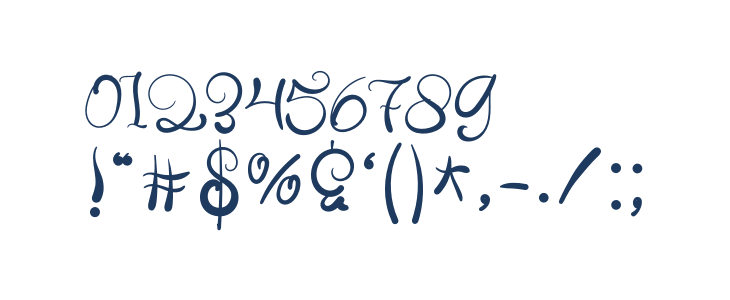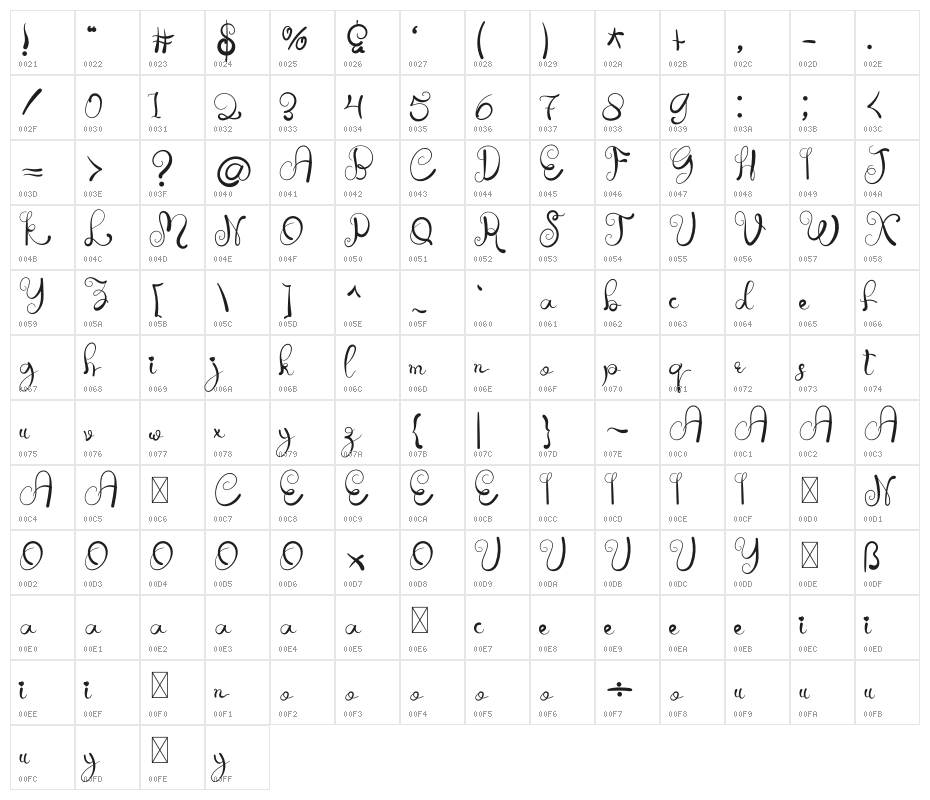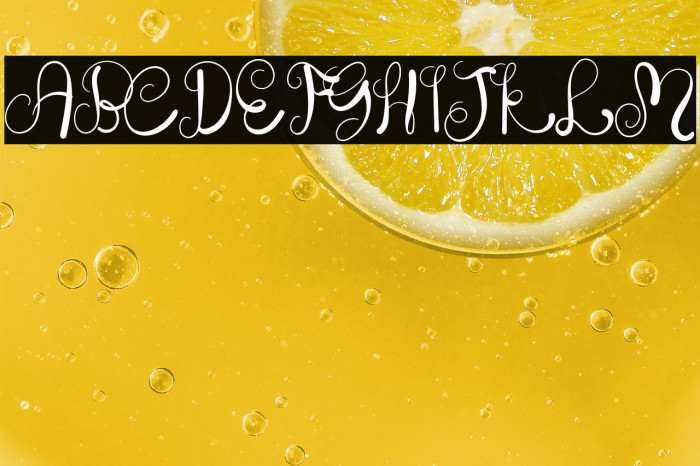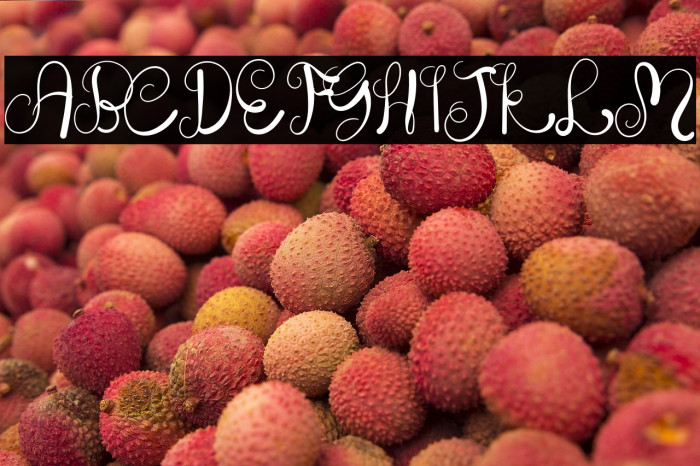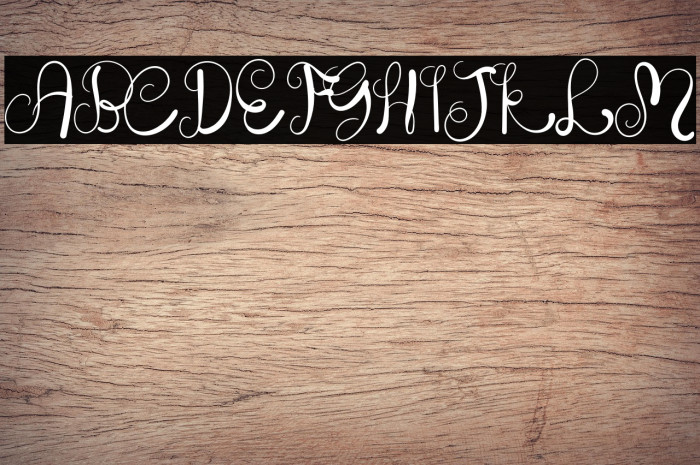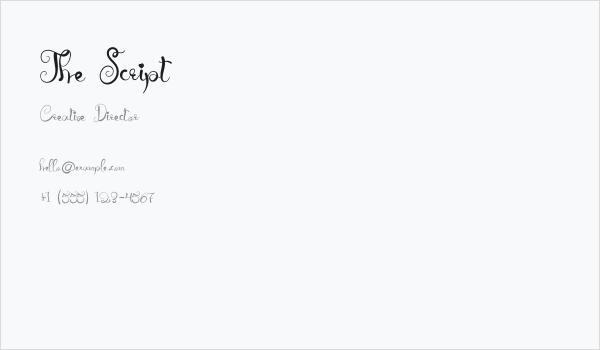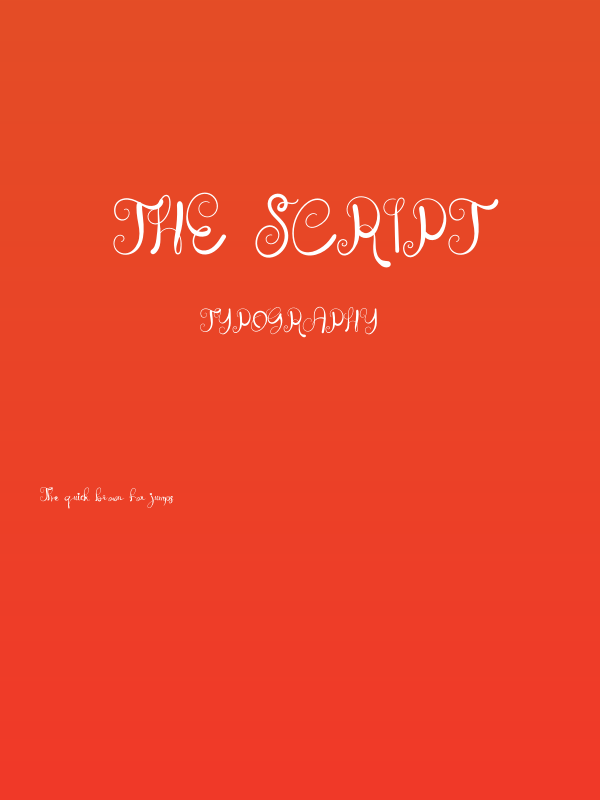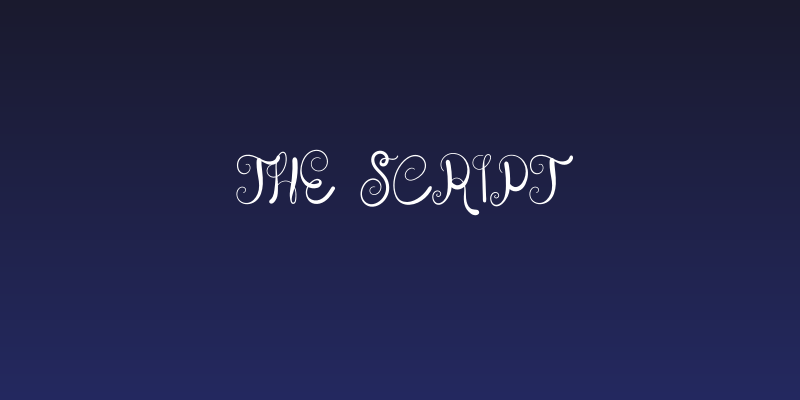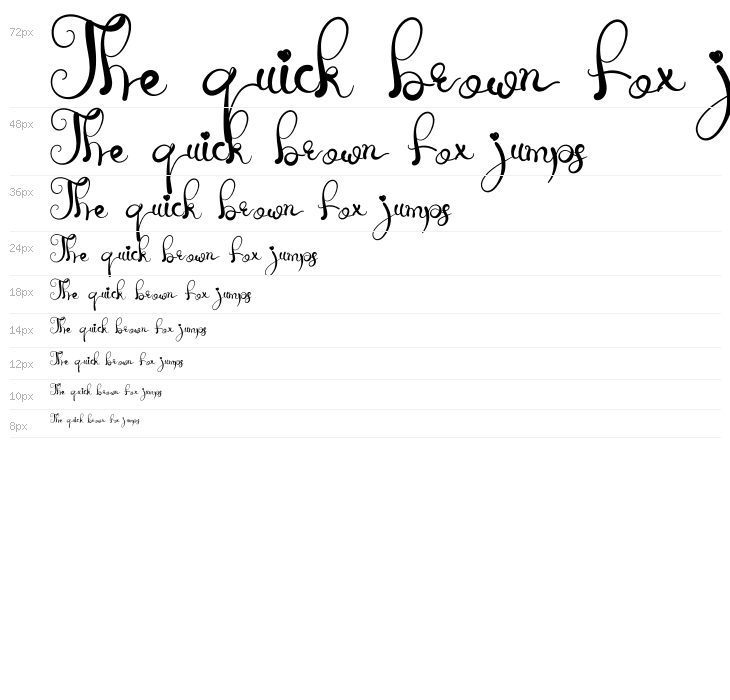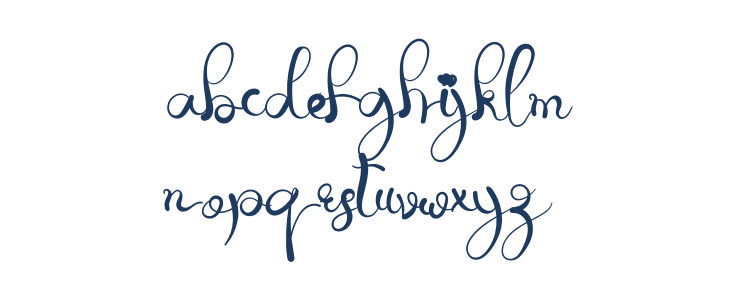
The Script Font
The Script Description
This font is a whimsical and artistic script style, characterized by its flowing, curly lines and playful loops. The uppercase letters exhibit a distinct elegance with exaggerated swirls, while the lowercase letters maintain a consistent fluidity, adding a touch of charm and creativity. The numerals and special characters are equally expressive, maintaining the font's overall lively and decorative appearance. This font is perfect for projects that require a personal, handwritten touch, such as invitations, greeting cards, or creative branding. Its unique style makes it stand out, offering a sense of individuality and artistic flair.
| Use Case | Logos, Headlines, Artistic projects |
| Proposed Projects | Ideal for invitations, greeting cards, creative branding, and artistic projects. |